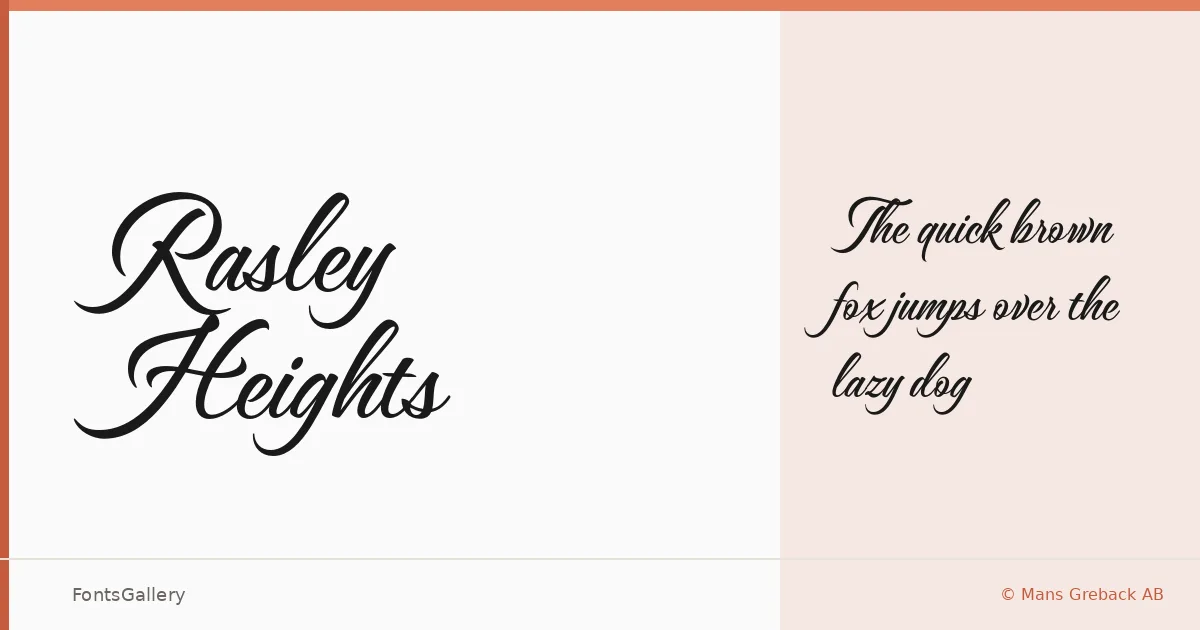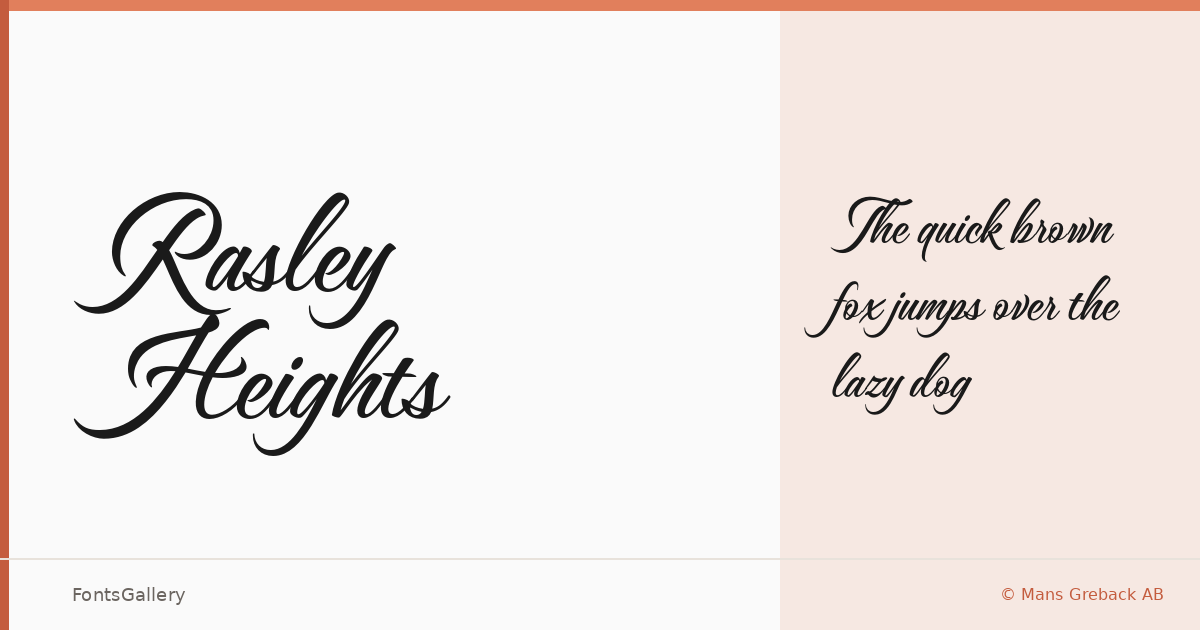
About Rasley Heights Font
There is a particular kind of flourish in this script — unhurried, confident, drawn with the weight of a broad nib settling into formal cursive. Rasley Heights is a calligraphic script by Mans Greback of Mans Greback AB, and it carries the kind of deliberate elegance you associate with hand-addressed envelopes and monogrammed stationery. The letterforms lean into romance without tipping into excess, keeping each stroke purposeful.
The family ships as a single Regular cut in OTF format, so its character lives entirely in the quality of individual glyphs rather than a range of weights. The mood is classic and luxurious — the sort of script that reads as a considered choice rather than a default. Swashes and connecting strokes feel natural in display sizes, where the rhythm of the cursive baseline has room to breathe.
It belongs on wedding invitations, greeting cards, and branding or logo work where a romantic, high-end tone is the point — particularly anywhere Latin Extended and Vietnamese text needs to carry that same calligraphic register. For contrast, it pairs well with the editorial clarity of Canela or ABC Arizona, the clean neutrality of Helvetica or Asap, or the refined serif structure of Anglecia Pro.